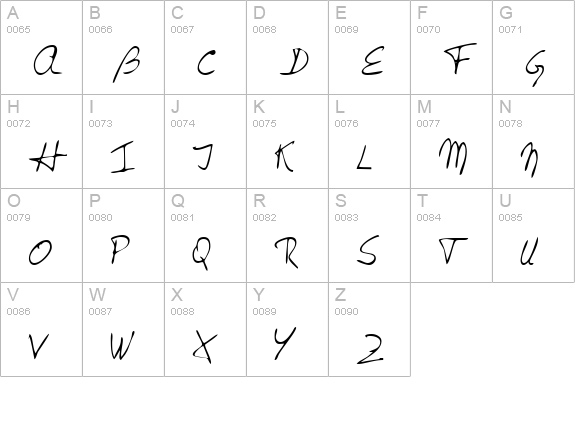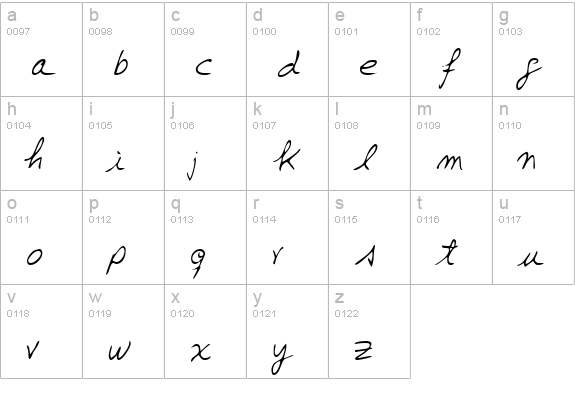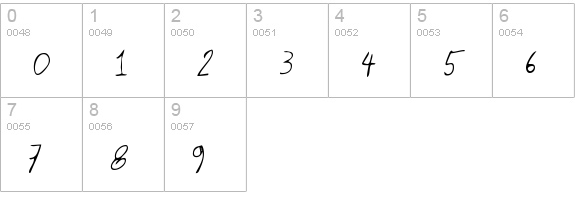
JenkinsHand Regular Font Details
JenkinsHand Regular is the standard, neutral variant in the JenkinsHand typeface family \xE2\x80\x94 well suited to general body text, paragraphs, and standard typographic work.
JenkinsHand Regular font is a charming and versatile typeface that exudes a friendly and approachable vibe. With its smooth lines and rounded edges, this font is perfect for a wide range of design projects, from invitations to branding to social media graphics. The playful yet legible nature of JenkinsHand Regular makes it a popular choice for adding a personal touch to any design. Best of all, JenkinsHand Regular font is completely free to download at FontsMarket.com. So whether you're a seasoned designer looking to add a new font to your collection or a beginner exploring typography for the first time, JenkinsHand Regular is a fantastic choice that won't cost you a thing. Download this delightful font today and let your creativity soar!